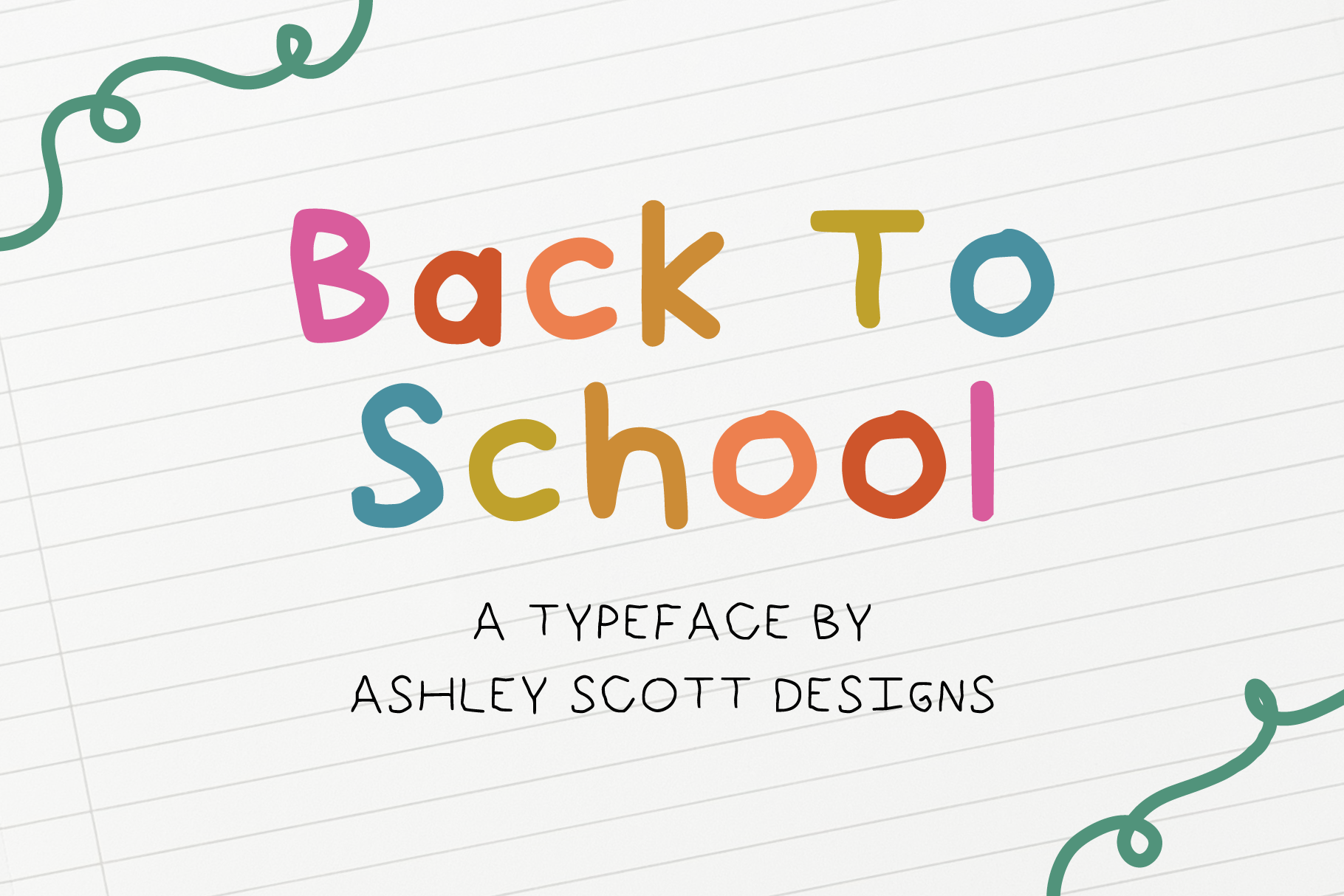
Back To School | Children's Font
Capture the excitement and creativity of the school year with Back to School! This delightful handwritten font is inspired by the playful and whimsical handwriting of young students. Perfect for adding a fun, youthful touch to any project, Back to School is ideal for educational materials, kids' invitations, classroom decor, children's books and more.